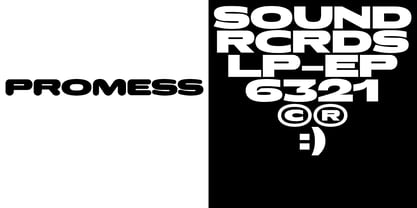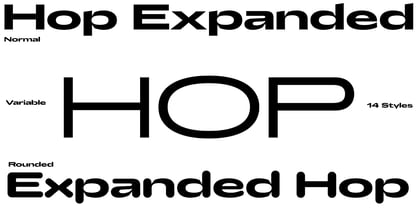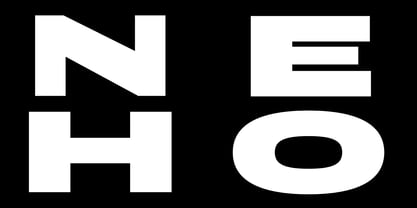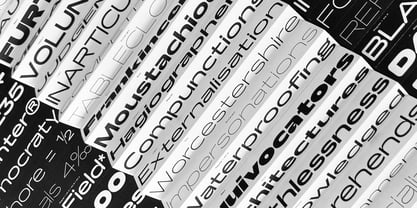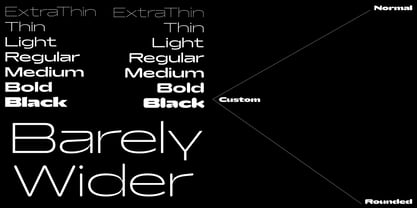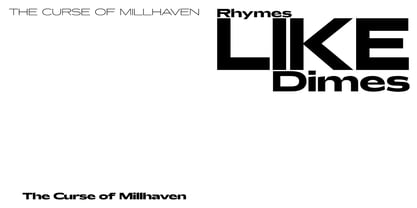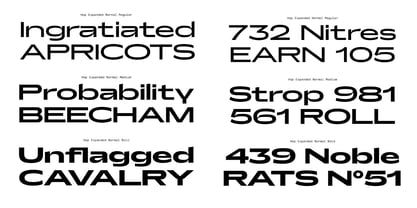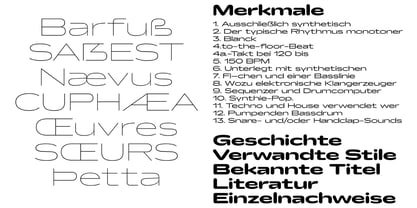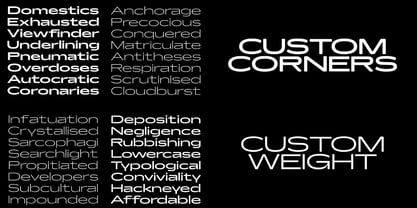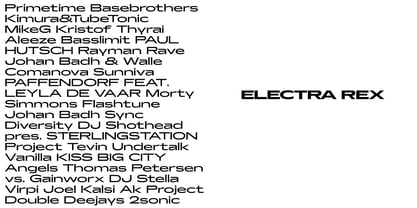
Hop Expanded
by Pizzatypefaces
The Hop Expanded Font Family was designed by Adrien Midzic and published by Pizzatypefaces. Hop Expanded contains 15 styles and family package options. More about this family
The Hop Expanded typeface serves as the wide counterpart to Hop Compressed, showcasing a calligraphic style in the connections between stems and bowls. This versatile typeface offers a broad spectrum of weights and features a rounded companion across all styles. Hop Expanded consists of two distinct families: Hop Expanded Normal, which presents strong and straight letterforms, and Hop Expanded Rounded, designed for a smooth and soft aesthetic. Additionally, Hop Expanded is a variable font with two axes (Weight 'wght' / Custom 'cstm'), allowing users to select weights ranging from 100 (Thin) to 900 (Ultra) and adjust the corner radius from 0 (none) to 100 (fully rounded). Whether you prefer rounded edges or sharp lines, Hop Expanded provides the flexibility to meet your design needs.
Designers: Adrien Midzic
Foundry: Pizzatypefaces